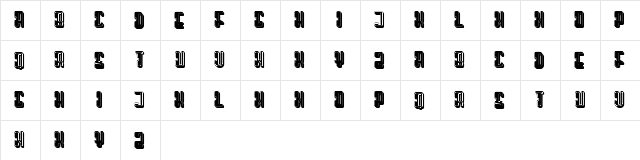
Mistress Filled Regular
Design Context for Mistress Filled Typeface
Mistress Filled is a composed and adaptable typeface that performs quietly and consistently across a wide range of design contexts.